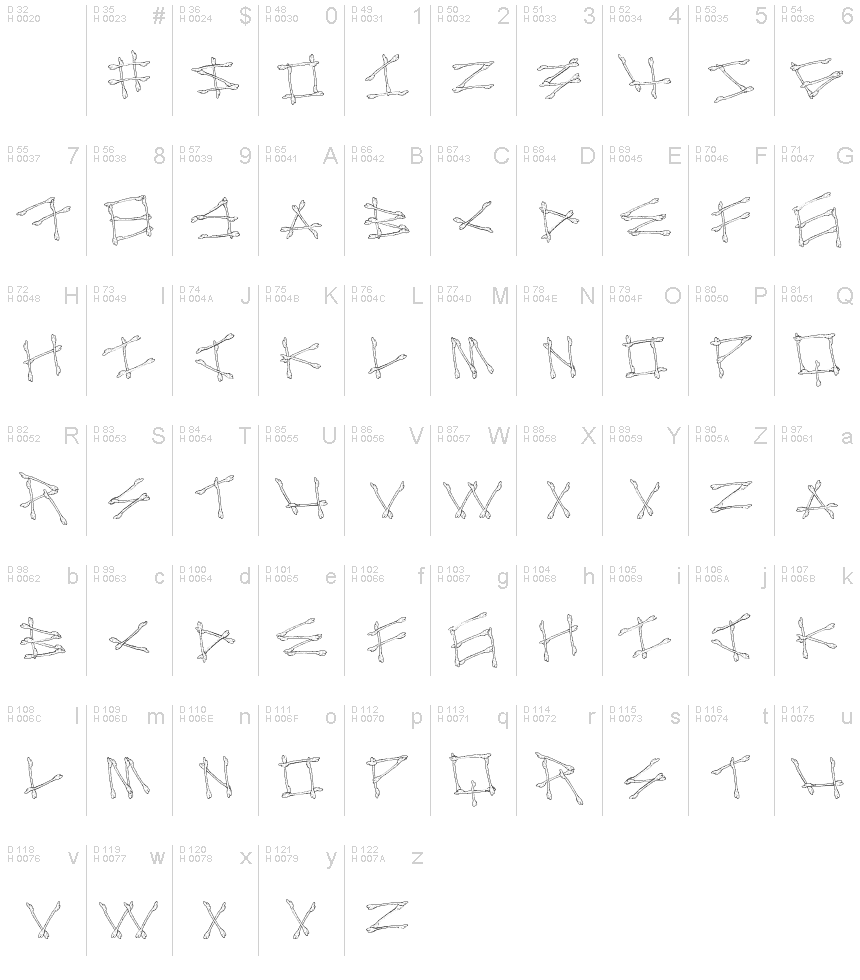
MegaBone
Mega Bone is a striking and unconventional display font that commands attention. Designed by Xerographer Fonts - Max Infeld, this expanded, decorative typeface features an intricate, hand-drawn aesthetic reminiscent of skeletal structures.
The irregular, jagged strokes and unique character shapes give MegaBone a bold, edgy personality, making it a captivating choice for attention-grabbing headlines, impactful branding, and experimental design projects. Its distinct visual character lends itself well to a range of creative applications, from horror-themed designs to modern, avant-garde aesthetics.
MegaBone's expressive personality ensures it will stand out and leave a lasting impression in any design context.